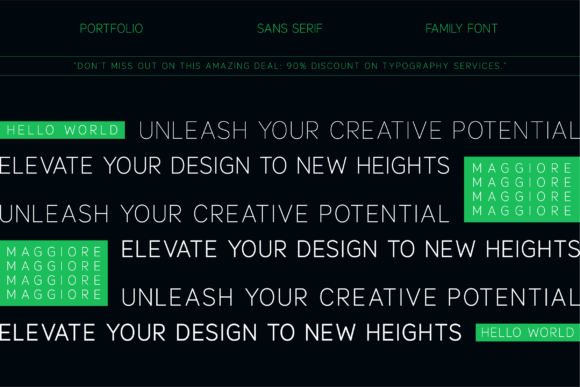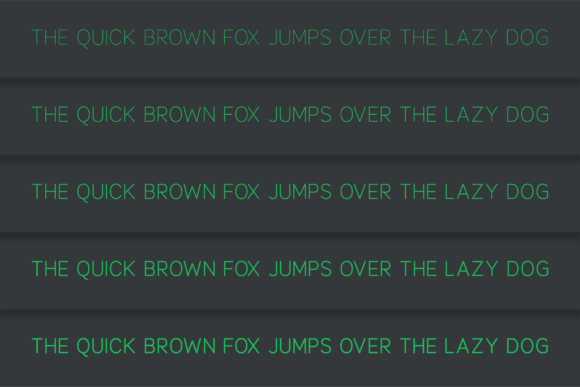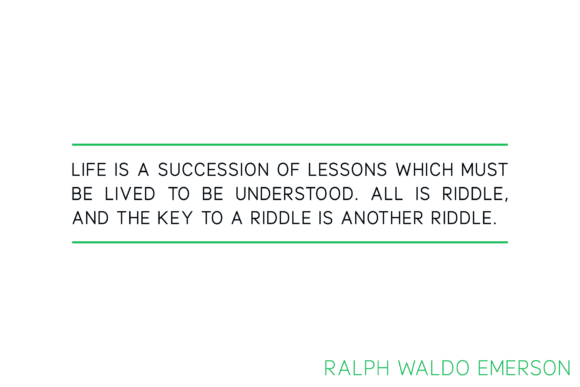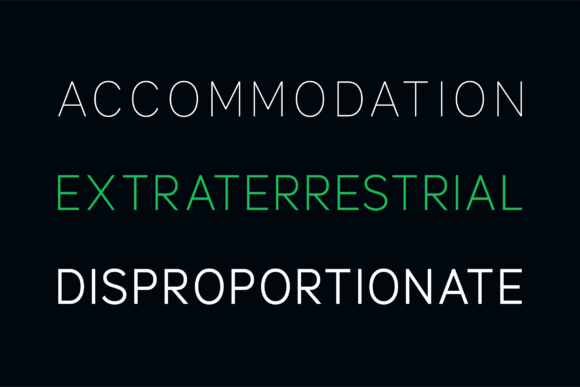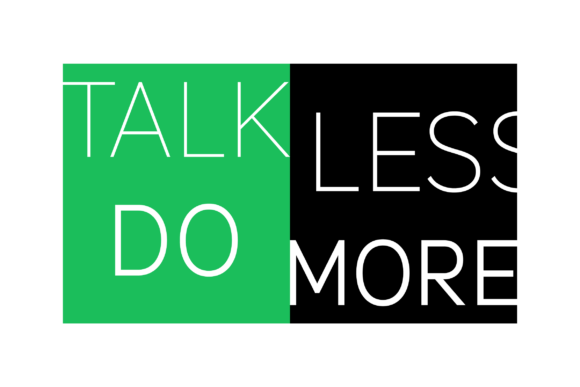
Introduction to Maggiore Font
Introducing Maggiore Font Family — A Masterpiece of Elegance and Minimalism Meet Maggiore Font, a meticulously crafted sans-serif font family that redefines modern design.
Featuring 5 distinct weights, it offers unparalleled versatility, seamlessly adapting to projects ranging from magazines and logos to film posters and beyond Designed with precision and an eye for detail, Maggiore Font strikes the perfect balance between sophistication and simplicity, allowing your creations to exude timeless charm and contemporary luxury.
Key Features of Maggiore Font
Why Choose Maggiore Font?
Maggiore Font offers exceptional quality and versatility, making it a valuable addition to your design toolkit. Whether you’re creating for personal projects or commercial use, Maggiore Font delivers professional results.